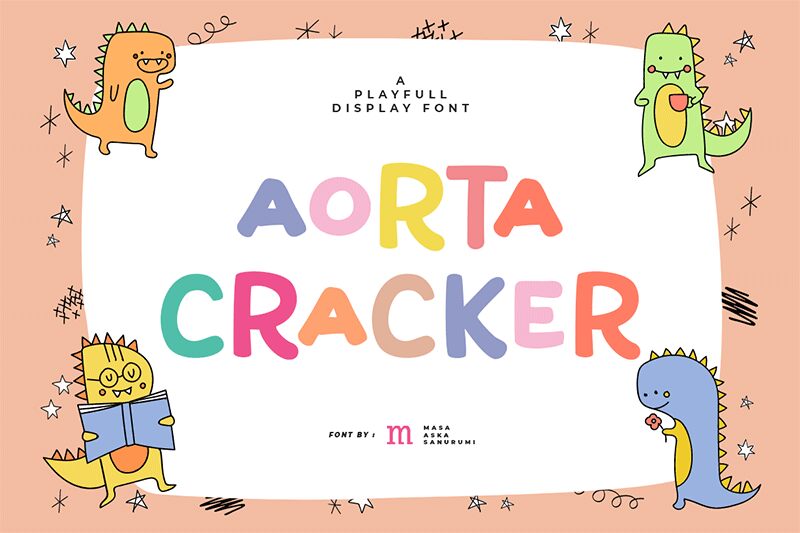
Aorta Cracker, designed by Masa Aska Sanurumi, is a bold and whimsical display font that packs a playful punch. Its cartoon style exudes an energetic charm that is both eye-catching and endearingly quirky. The semi-expanded width of Aorta Cracker gives each letter a presence that's hard to ignore, making it perfect for titles and headers where personality is key.
The font’s weight adds a solid, tactile feel to the text, ensuring that it stands out with confidence on any backdrop. Aorta Cracker's aesthetic appeal lies in its ability to balance fun with functionality, rendering it ideal for creative projects ranging from children’s books to dynamic branding or spirited advertising campaigns.